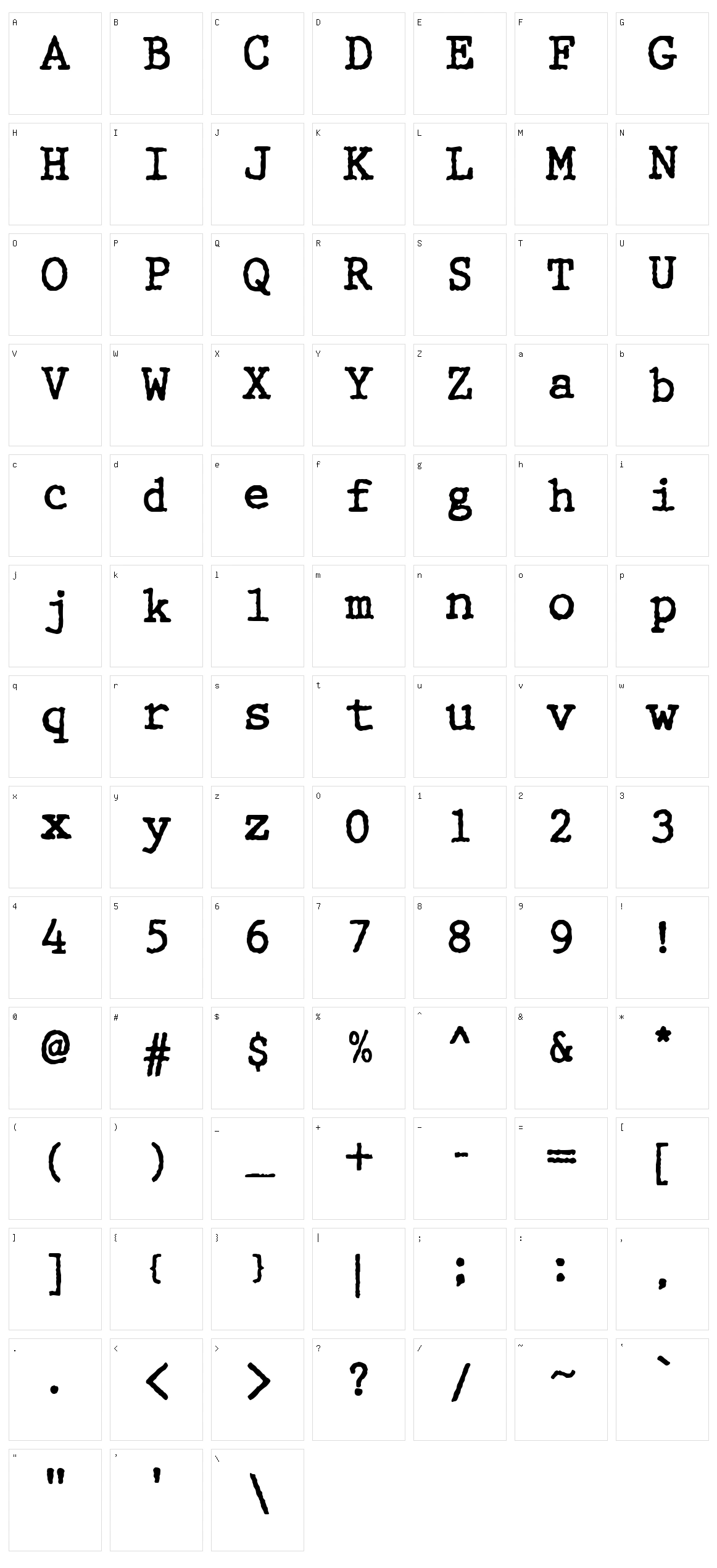
The free font WBX Granny T is carefully designed by Vigilante Typeface Corporation, showcasing a thoughtful balance of creativity and usability and falls under the Typewriter font style. When you download the ZIP file, it contains only 161.74 KB of font files, making it lightweight and quick to download. Please review the license details below to understand permitted usage and distribution rights. If license information is not available, we recommend using this font for personal projects only or contacting the author directly for commercial usage permissions.